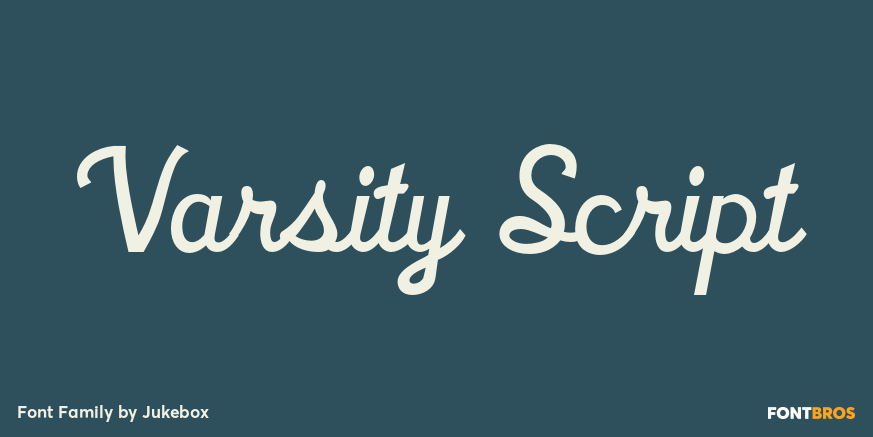
Varsity Script
About Varsity Script
Varsity Script is a very early Jukebox font that is designed in the style of the athletic scripts commonly found on team jerseys and uniforms. Unassuming and charming, this font is perfect for a number of applications where a light hearted, easy going…